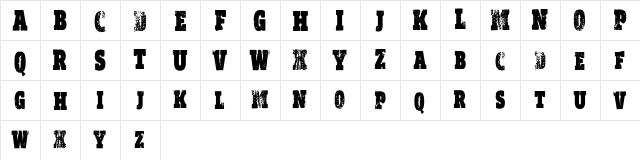
Vtks Realm Regular
| Foundry | douglas vitkauskas |
| Designer | douglas vitkauskas |
Design Context for Vtks Realm Typeface
Vtks Realm is a composed and adaptable typeface that performs quietly and consistently across a wide range of design contexts.